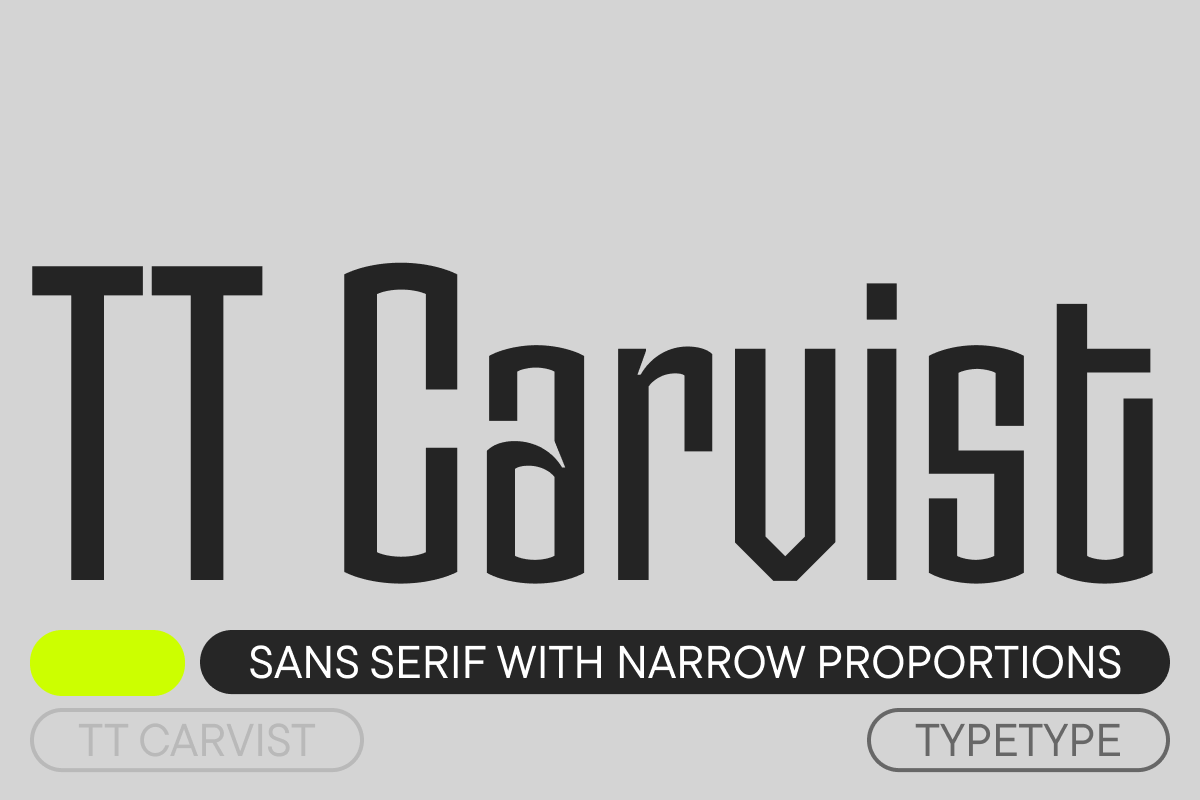
TT Carvist DemiBold
TT Carvist is a modern, experimental sans serif with extra narrow proportions. TT Carvist is notable for its modular structure, 45-degree diagonal outer cuts, closed apertures, and distinctively large ink traps of the lowercase letters. Interestingly, the font doesn’t feature any round letterforms. The name of the typeface is a reference to stone carving, which is clearly seen in its characteristic traits: geometric precision and sturdy aesthetic.